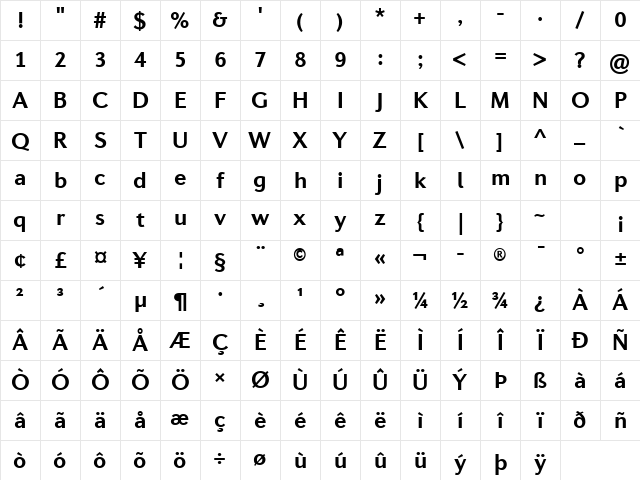
Diverda Sans Com Bold
Designer: Daniel Lanz
Complete Diverda Sans Com Bold glyph index. Displaying only characters natively supported by Diverda Sans Com Bold font.
Design Context for Diverda Sans Com
Diverda Sans Com is a composed and adaptable typeface that performs quietly and consistently across a wide range of design contexts. Its bold stroke weight gives it real presence on the page.